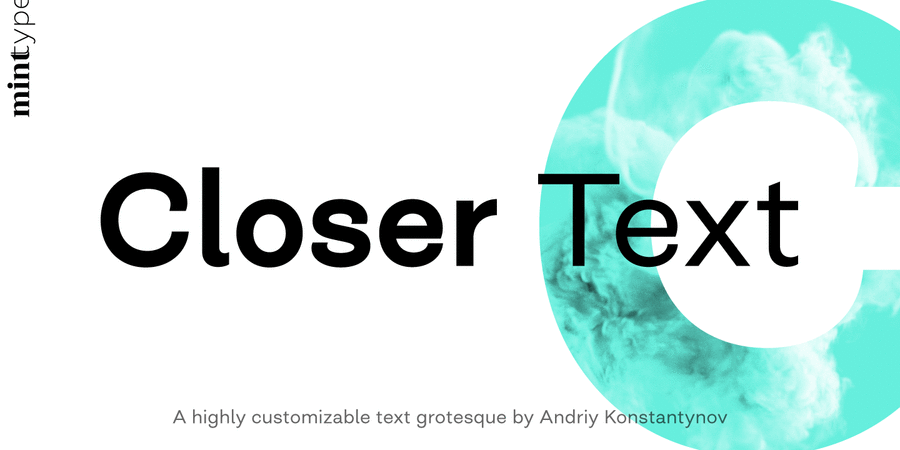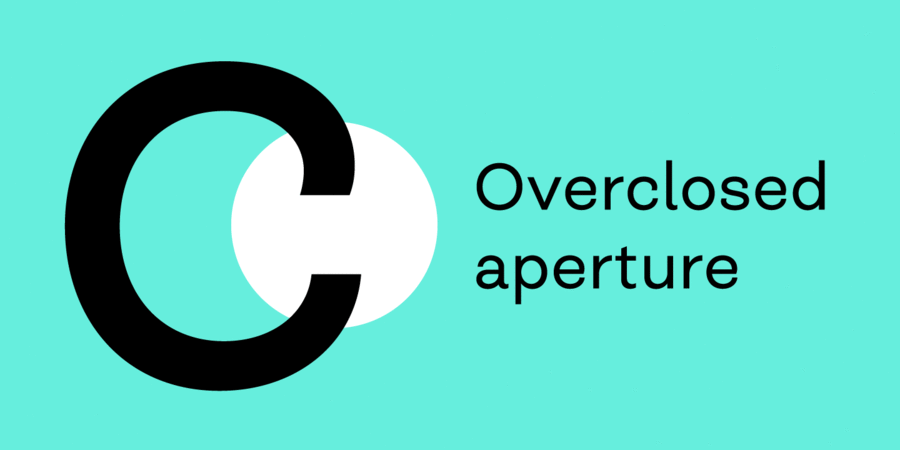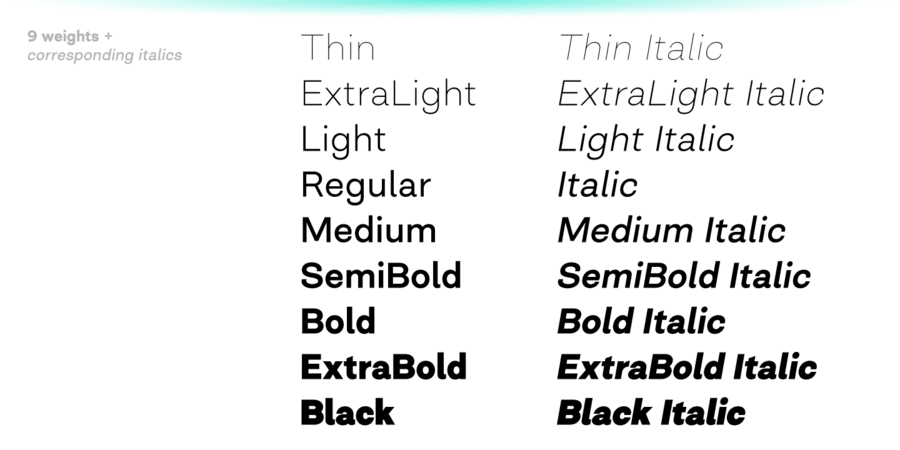
About Closer TextA narrower, more compact version of previously released Closer. Closer Text is a highly customizable Swiss grotesque with overclosed aperture. Featuring some humanistic shapes, Closer Text feels less bland though still relatively neutral. Closer Text comes in 9 weights (18 styles altogether), features extensive language support including Cyrillic and is highly customizable with 7 stylistic sets to mix and match. The typeface was designed by Andriy Konstantynov in 2019.
Hit of 2010s Closer Text supports 84 languagesUkrainian, English, German, French, Polish, Portuguese, Spanish, French, Russian, Czech, Dutch, Italian, Swedish, Turkish, Finnish, Belarusian, Serbian, Bulgarian, Estonian, Lithuanian, Albanian, Afrikaans, Basque, Breton, Valencian, Galician, Gaelic (Scottish), Danish, Indonesian, Irish, Icelandic (Win), Karakalpak, Catalan, Norwegian, Occitan, Rhaeto-Romance, Sami Lule, Tswansky, Uzbek (Lat.), Faroese, Frisian, Chamorro, Estonian (Win), South Sami, Albanian (Win), Hungarian, Upper leprechauny, Karelian, Latvian (Mac), Lithuanian (Mac), Maori (Mac), Moldovan (Lat.), Lower Sorbian, Romanian (Win), Slovak, Slovenian, Turkmen (Lat.), Croatian (Win), Estonian (Mac), Kurdish, Latvian, Maori, Romanian, Abazin, Avar, Agul, Adyghe, Darginsky, Ingush, Kabardino-Circassian, Kabardian, Karachay-Balkar, Kumyk, Lak, Lezghian, Macedonian, Mordovian-Moksha, Mordovian-Erzya, Nogai, Rutulian, Tabasaran, Tatar, Tsakhur, Chechen Functions of font family Closer TextTypeface use in layout:
laconic, urban, high-quality, calm, modern, fashionable, cold, thin, easy, clear, clean, weightless, transparent, smooth, fragile, wire, flexible, original, kind, pleasant, delicate, chilly, cultural, rich, tender, cozy, neon, intimate, peaceful, comfortable, glass, fresh, stable, static, globalized, globalistic, technically, self-assured, reliable, sportive, important, convincing, persistent, urgent, powerful, strong, authoritative, notable, heavy, industrial, tough
design, purity, hygiene, shampoo, diet, beauty, Eau de Toilette, cosmetics, fashion, ASMR, perfumery, lotion, city, medicine, health, ecology, clothes, yoga, water, medicines, retail, Lockdown, protection, fitness equipment, machine tool, mechanical engineering, industry, energy industry, power station, Freight, truck, sport, tool, motor, engine, show, TV, metallurgy, Delivery Typeface associated with age: